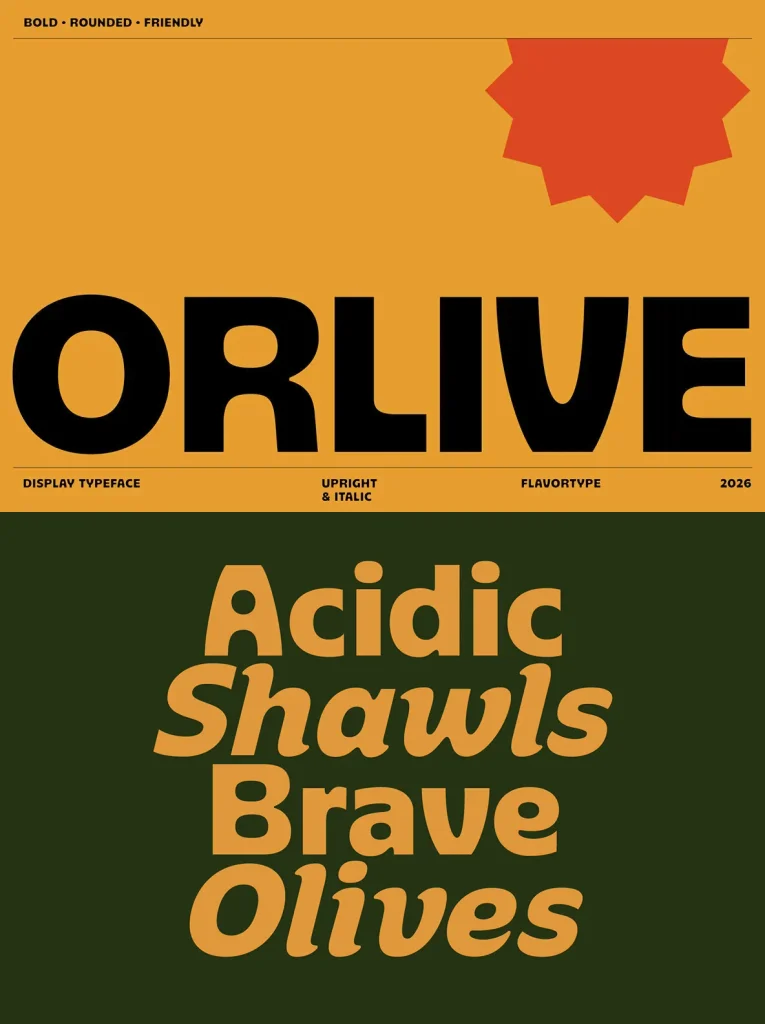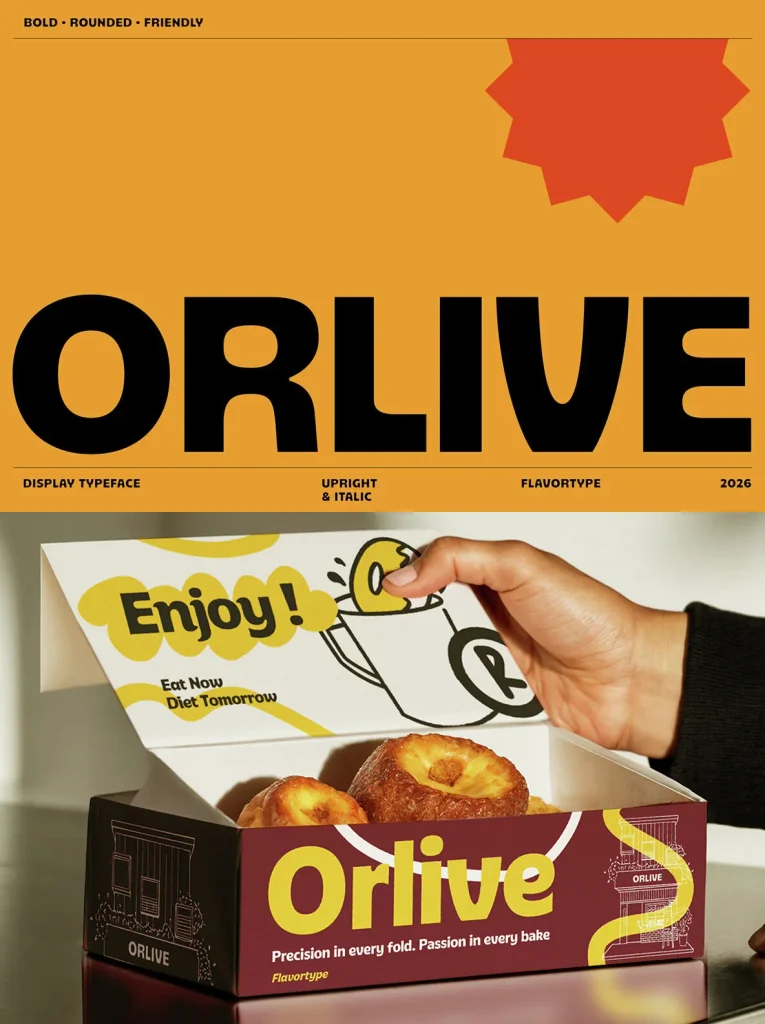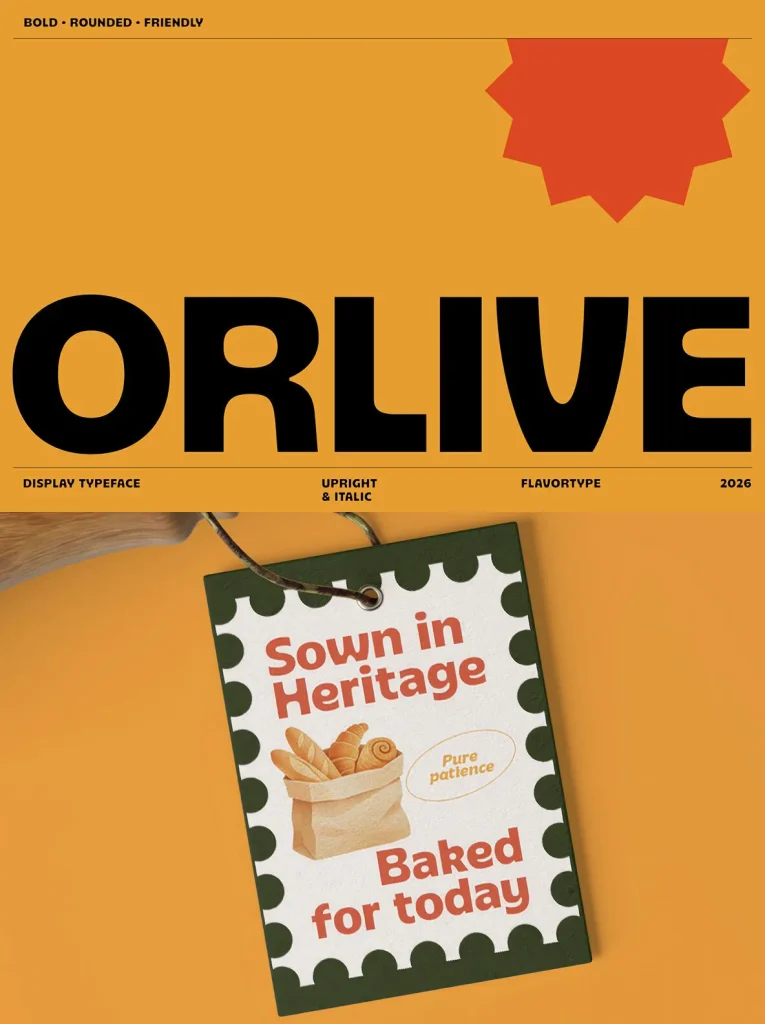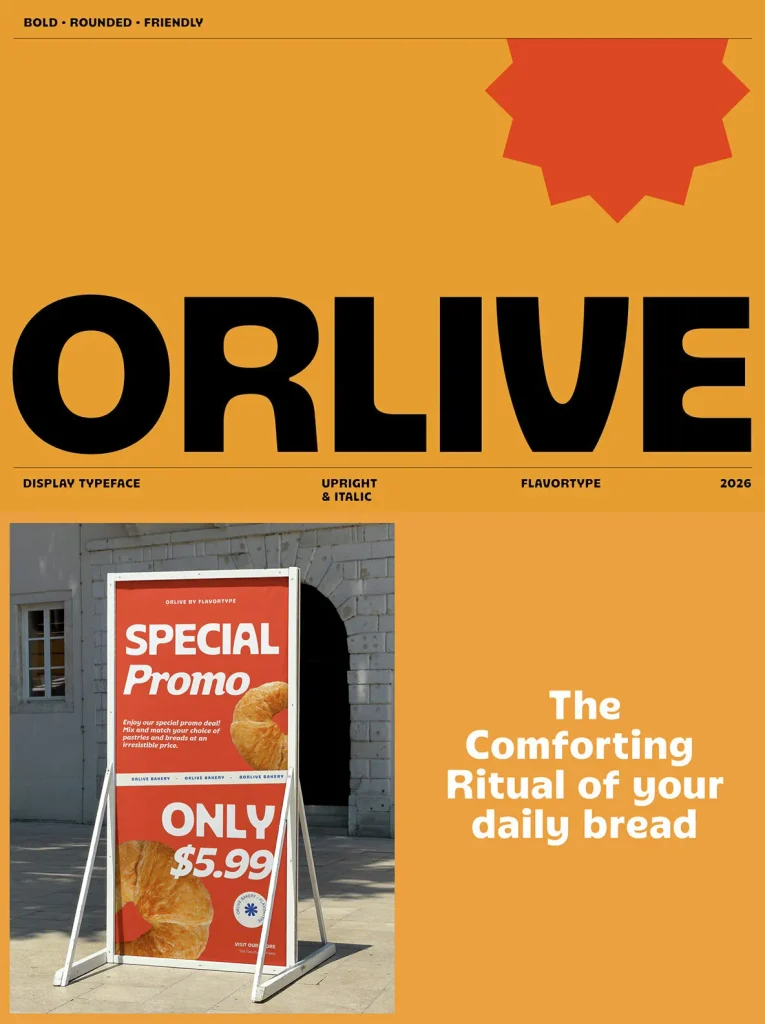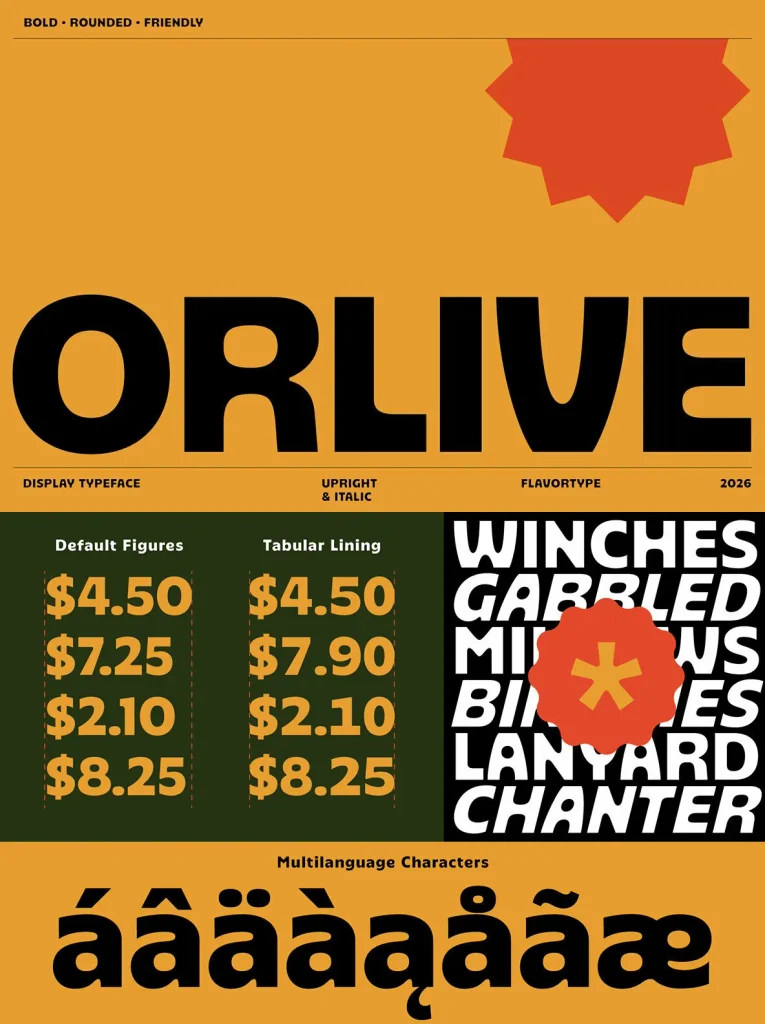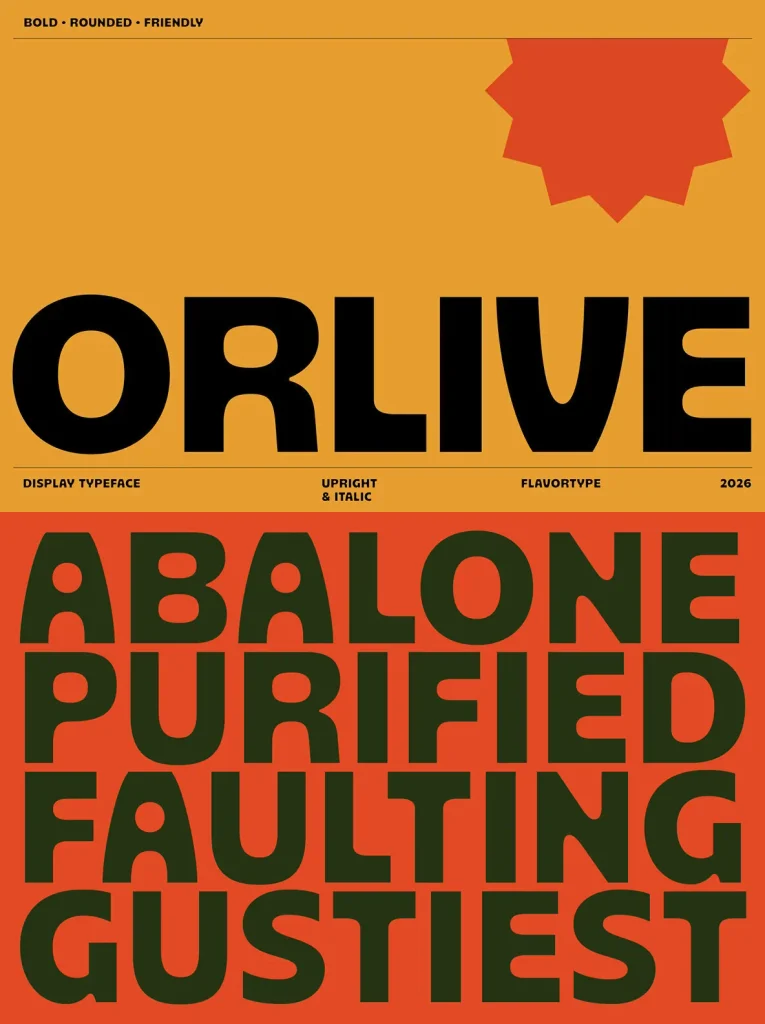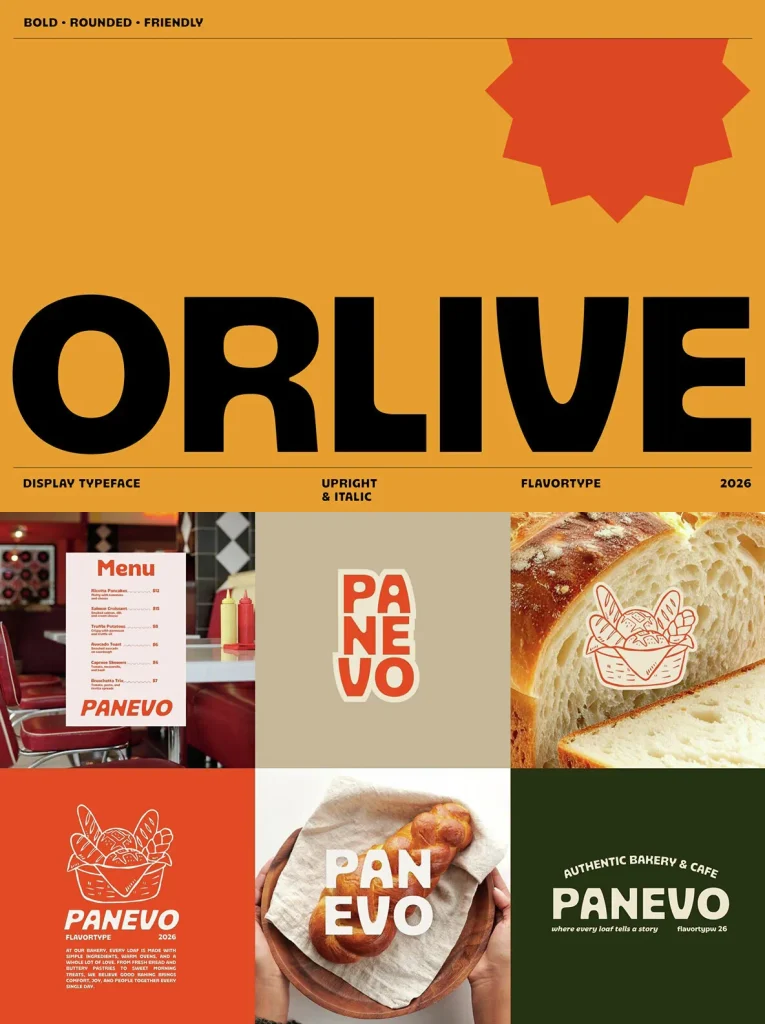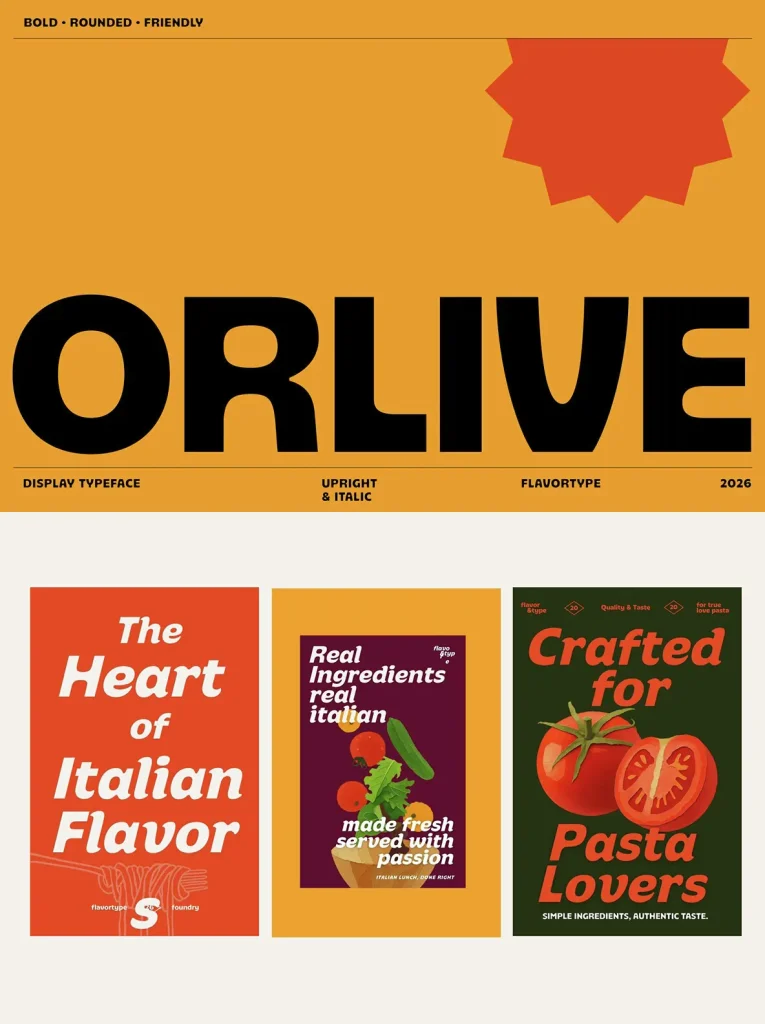
Orlive — Warmth with Bold Flavor
Orlive is a warm, expressive display typeface made to bring personality to every layout. Its bold curves, soft corners, and playful rhythm give it a confident, friendly voice with a rich visual flavor. The family offers two distinct styles: Upright for strong, impactful headlines and Italic for a more dynamic, energetic feel.
Inspired by artisan bakery signs, retro grocery packaging, and cheerful food branding, Orlive balances chunky letterforms with smooth readability. It feels both nostalgic and fresh, playful yet dependable. Use it for branding, packaging, menus, posters, social media, café identities, snack brands, lifestyle projects, and vibrant editorial layouts that need a bold human touch.